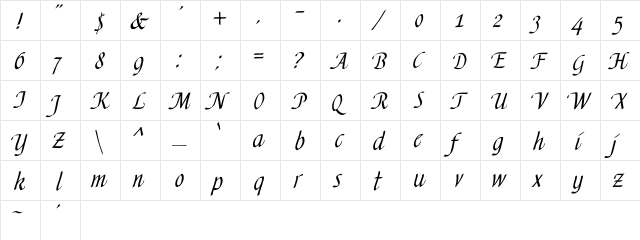
Carnegie1 Regular Font Preview
Carnegie1 Regular
Design Context for Carnegie1 Typeface
Carnegie1 offers clean, dependable letterforms without strong stylistic allegiance, making it a practical choice for designers who need flexibility.
Pro Tip: Use Carnegie1 in both headline and body roles to test its range before committing to a single application.